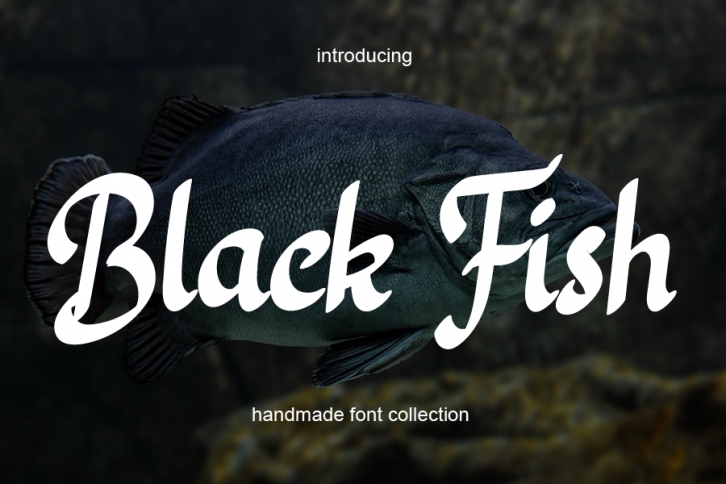
Black Fish is a beautiful script font that works well for a variety of designs. Get inspired by its playful romantic charm! Add this lovely choice to your creations and take your designs to the next level!